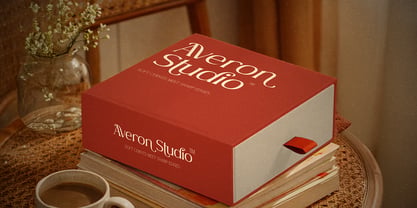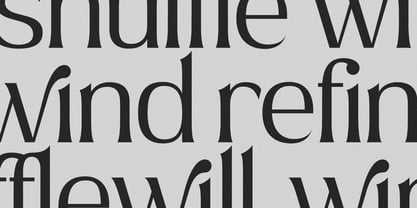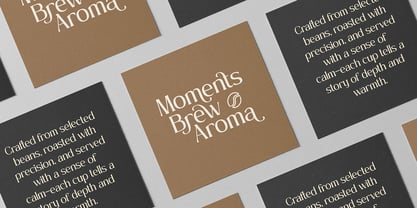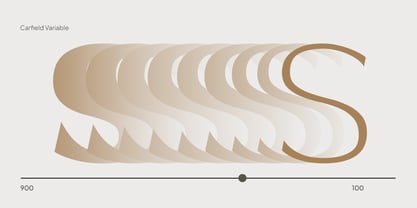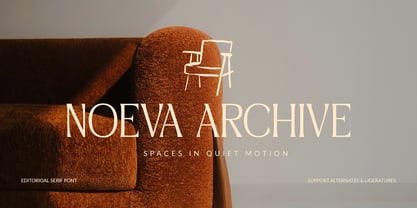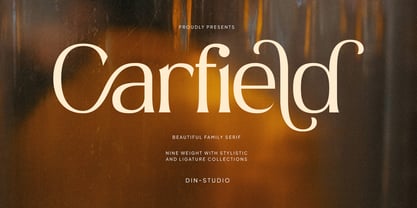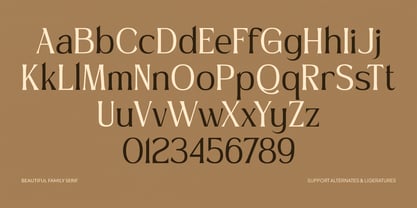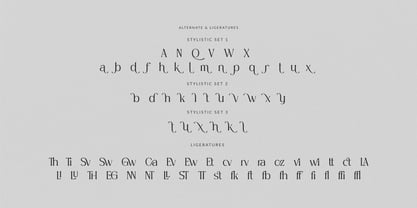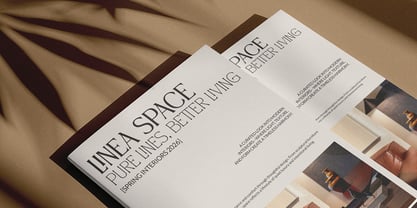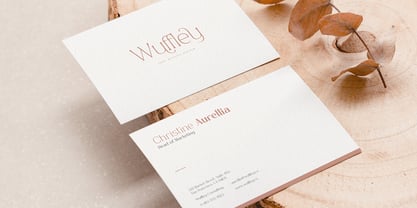
Carfield
by Din Studio
The Carfield Font Family was designed by Donis Miftahudin and published by Din Studio. Carfield contains 9 styles and family package options. More about this family
Carfield is a versatile serif font family that combines simplicity, elegance, and modern functionality into one beautifully crafted type system. Carfield comes in different weights, from thin to black, providing exceptional flexibility for building strong and cohesive visual hierarchies. Its understated elegance makes it suitable for both contemporary and classic design styles, offering designers a reliable and sophisticated typography solution. In addition, enjoy the features here.
Features:
• Ligatures
• Stylistic Sets
• Multilingual Supports
• Numerals and Punctuations
Carfield fits in logos, quotes, name cards, branding, posters, and many more designs. Find out more ways to use this font by taking a look at the font preview.